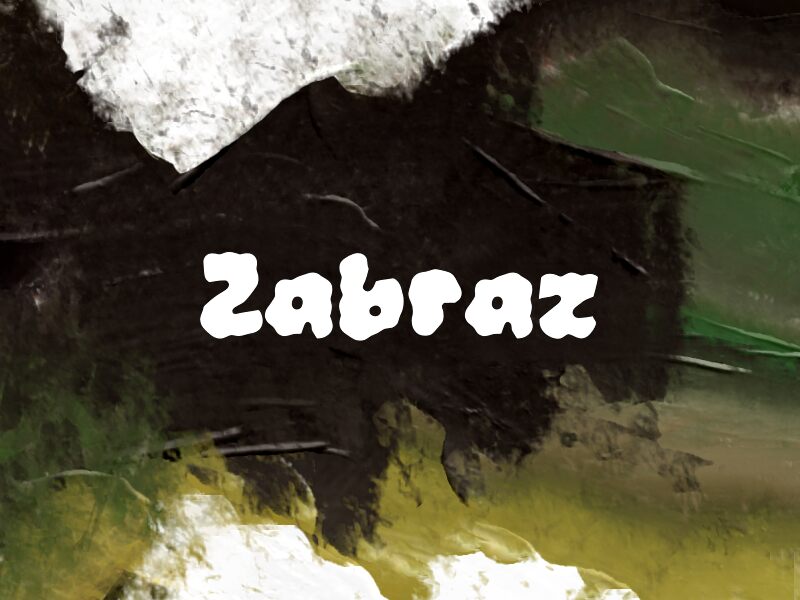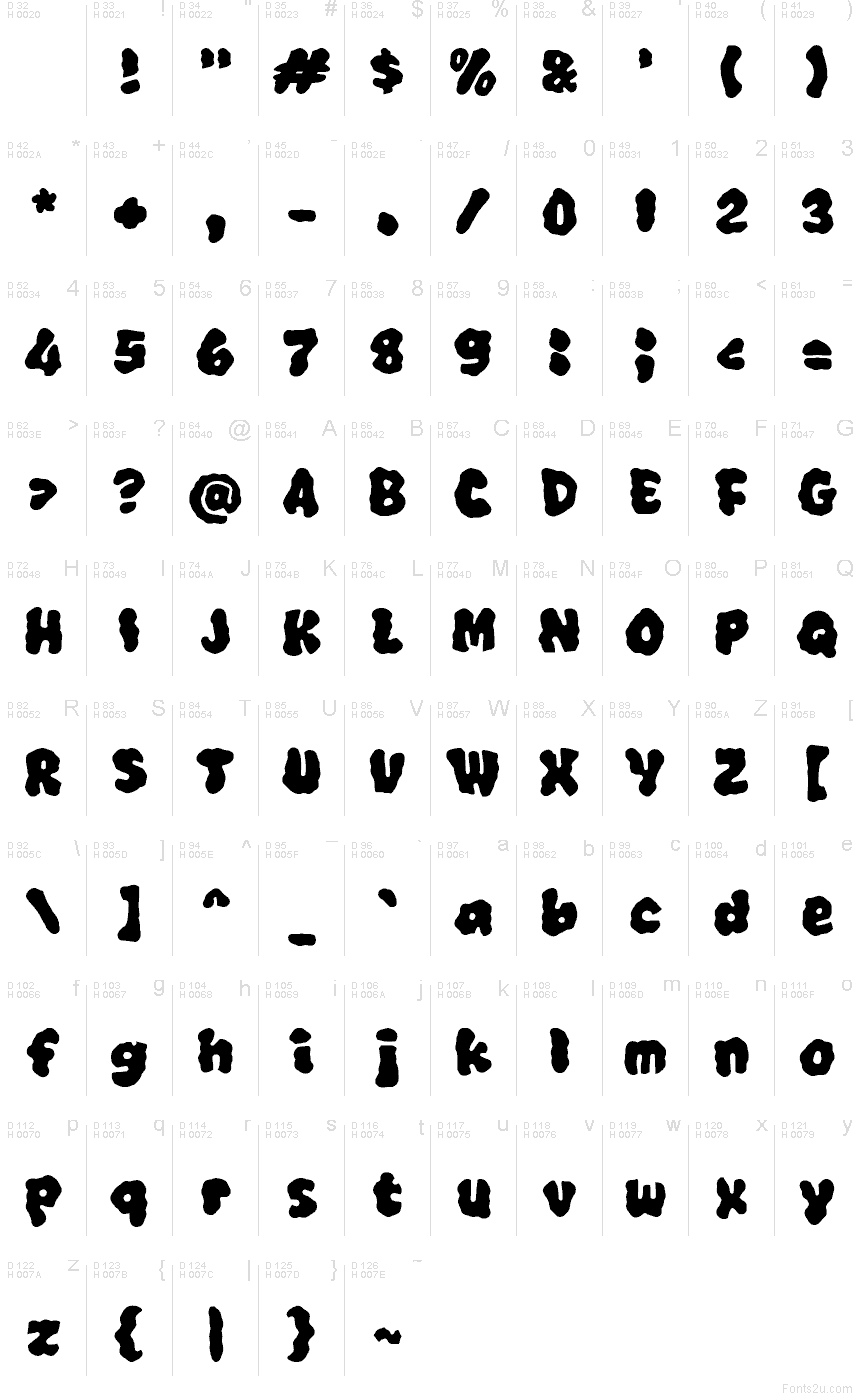
Zabraz
Zabraz font by wepfont.com is a free groovy display typeface with a gloriously blobby, inky personality. Each letter feels like it’s been poured onto the page, with soft, swollen curves and playful, uneven silhouettes that look almost liquid. The heavy, ink-splatter feel gives Zabraz an offbeat, DIY energy that’s bold, a little chaotic, and impossible to ignore.
Using Zabraz, headlines instantly feel loud, fun, and a bit surreal—great for festival posters, psychedelic album art, zines, event flyers, YouTube thumbnails, and quirky brand wordmarks. This free font works best at large sizes where its gooey contours can breathe. Pair Zabraz with a clean, neutral sans serif for body text to keep layouts readable while letting its wild shapes steal the spotlight.